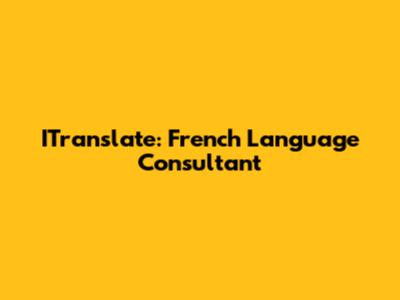
- Children's Books and Materials: Its playful and informal style makes it perfect for engaging young readers.
- Birthday Invitations and Party Decorations: Add a touch of whimsy to your celebrations.